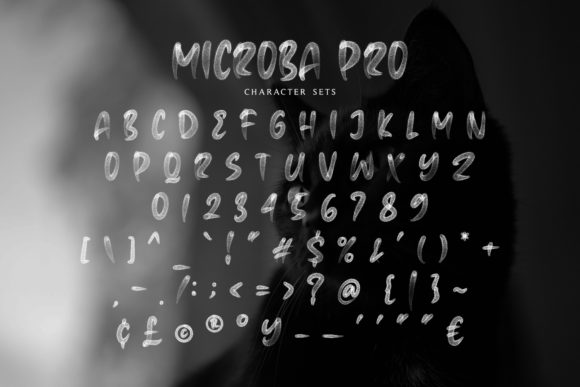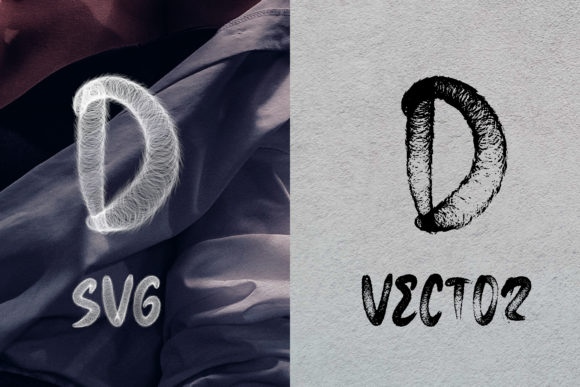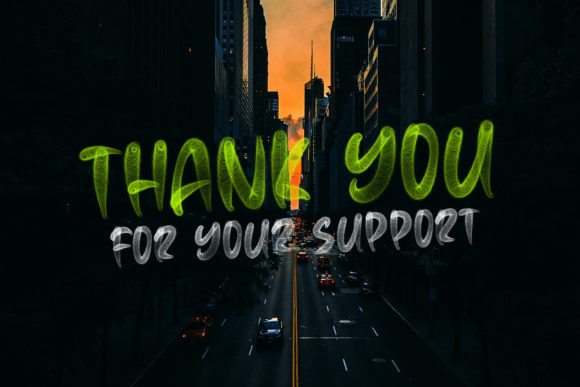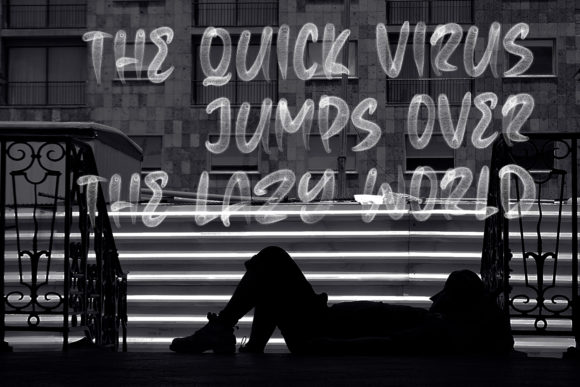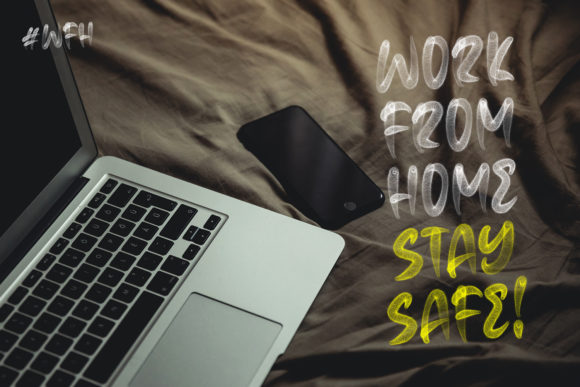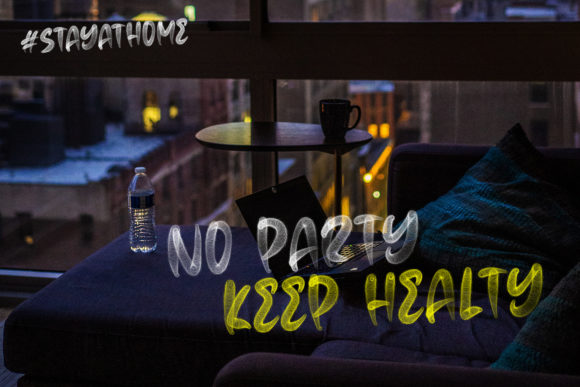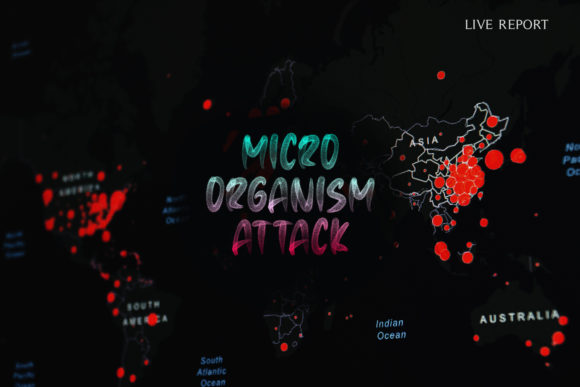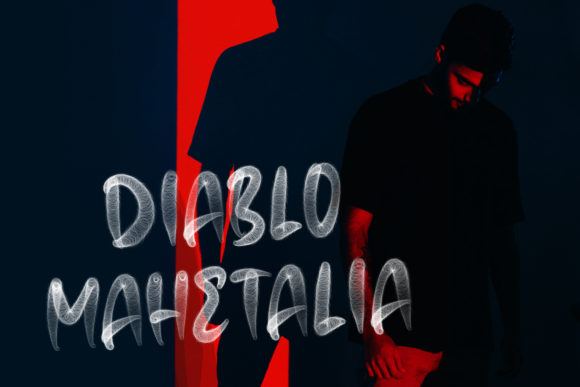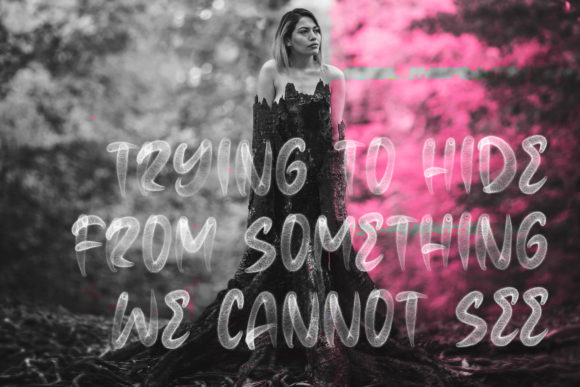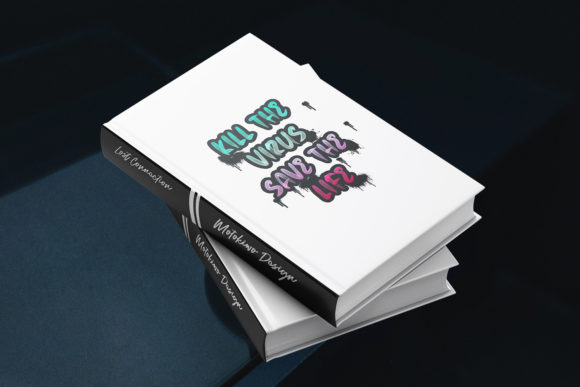
Microba Pro Font
Microba Pro is a unique typeface created from a great brush that looks like micro organism, virus, hollow, or worm. Get inspired by its original look and create amazing designs!